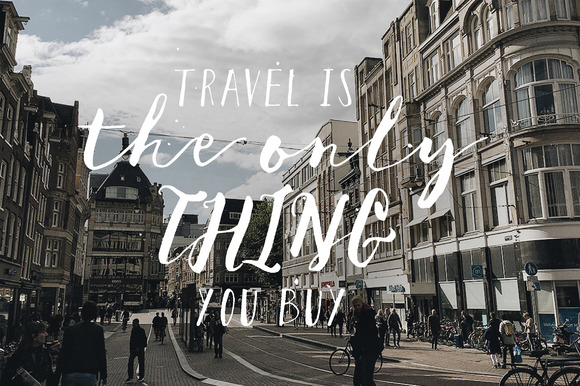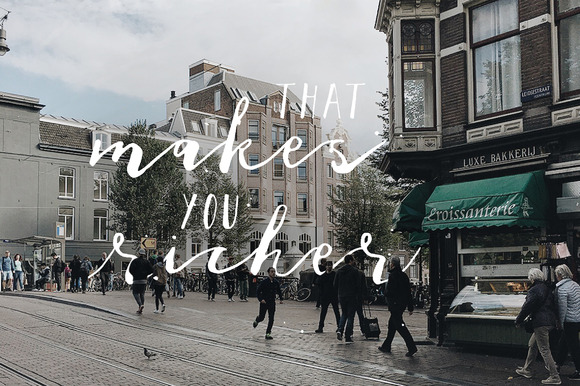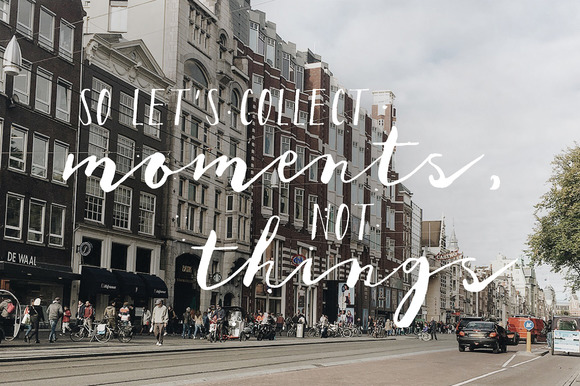
Carissa Wellington Font
Carissa Wellington is a feminine handwritten script font which has been created by hand using a brush pen.The Carissa Wellington font contains a complete glyph set and can be used for many types of projects. You will also receive the August font (the font that has been used in the preview image).